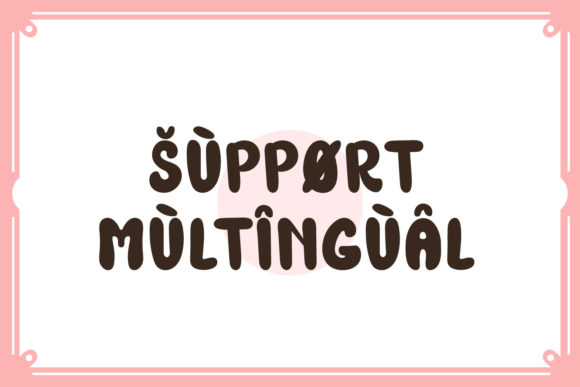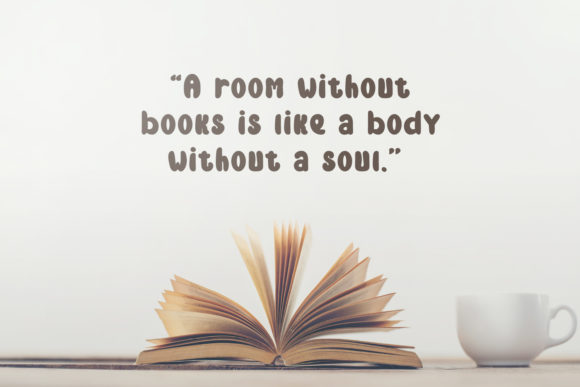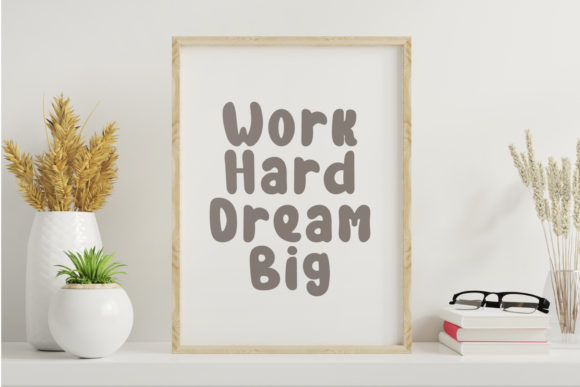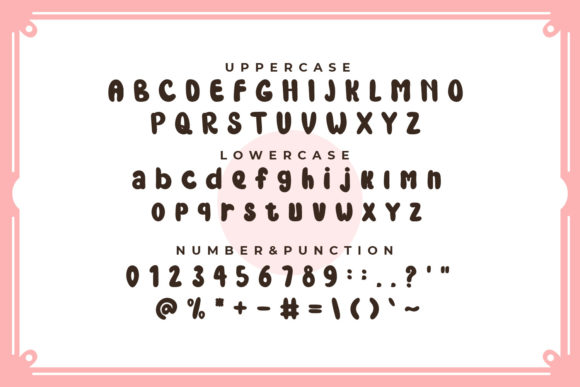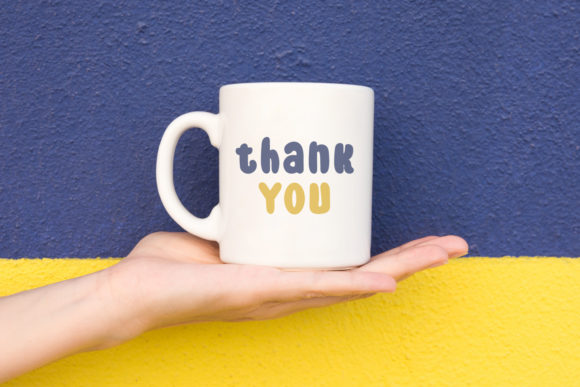
Unleash Your Creativity with the Perfect Font: Britney Font
Have you ever been in a creative rut, staring at a blank page or screen, waiting for inspiration to strike? It’s a feeling many designers know all too well. But what if you had the perfect tool to spark your creativity and bring your ideas to life?
Enter Britney Font, a delightful and playful display font that’s perfect for adding a touch of whimsy to your designs. With its unique ornaments and charming aesthetic, Britney Font is ideal for creating eye-catching cards, branding, stationery, and blog designs. Whether you’re a seasoned designer or just starting out, Britney Font is a valuable addition to your toolkit. Its versatility and charm make it a must-have for any creative project, from custom art to quotes and beyond.
Britney Font Key Features
- Font Family: Britney is a sans-serif font family.
- Unique Characteristics: Britney features a clean and modern design with rounded edges, giving it a friendly and approachable feel.
Britney Font Review
Overall, I found Britney Font to be a solid addition to any designer’s toolkit. While it’s not a game-changer, it’s a reliable choice for casual use.
- ✨ Friendly, approachable feel that’s perfect for social media and blogs
- ✨ Clean lines and simple shapes make it easy to read on various devices
- ✨ Supports a wide range of languages, making it a great choice for international projects
- ⚠️ Limited character set, which may not be suitable for complex branding or logo design
- ⚠️ Not as versatile as other fonts, making it less suitable for formal or professional projects
- ⚠️ Some users may find the font too simplistic or generic
Overall, I’d say Britney Font is a safe choice for designers looking for a friendly, easy-to-read font. While it may not be the most exciting option, it’s a reliable choice that gets the job done. If you’re looking for something more unique or bold, you may want to consider other options.
Getting the Most Out of Britney Font
To get the most out of Britney Font, use it for:
- Displaying headings and titles
- Creating eye-catching graphics and designs
- Adding a touch of elegance and sophistication to your designs
Britney Font is commonly used for:
- Social media graphics and advertising
Alternatives to Britney Font
Britney Font is a sans-serif typeface known for its clean and modern design, but if you’re looking for something different, here are a few alternatives:
1. Arial
Arial is a classic sans-serif typeface designed by Robin Nicholas and Patricia Saunders in 1982. It’s a versatile font that works well for both body text and headlines. Use Arial when you need a clean and neutral font that won’t distract from the content.
Compared to Britney Font, Arial has a more rounded appearance and a slightly less modern feel. While Britney Font is more condensed, Arial has a more open design.
Open Sans is a modern sans-serif typeface designed by Steve Matteson in 2010. It’s highly legible and works well for both digital and print media. Use Open Sans when you need a clean and modern font that’s also highly readable.
Compared to Britney Font, Open Sans has a more geometric appearance and a slightly more condensed design. While Britney Font is more ornate, Open Sans is more minimalist.
Lato is a sans-serif typeface designed by Łukasz Dziedzic in 2010. It’s a highly readable font that’s perfect for body text and headlines. Use Lato when you need a clean and modern font that’s also highly legible.
Compared to Britney Font, Lato has a more rounded appearance and a slightly more condensed design. While Britney Font is more ornate, Lato is more minimalist.